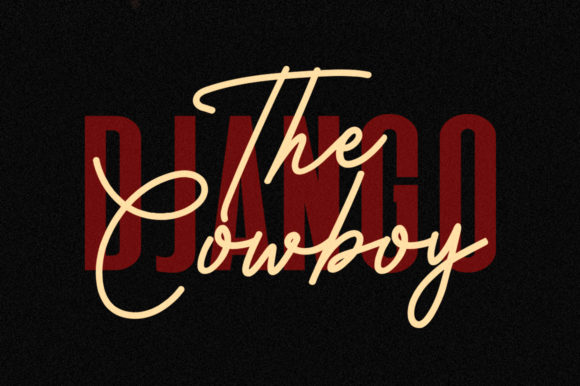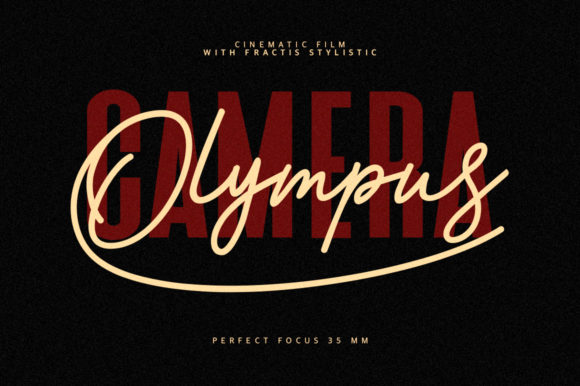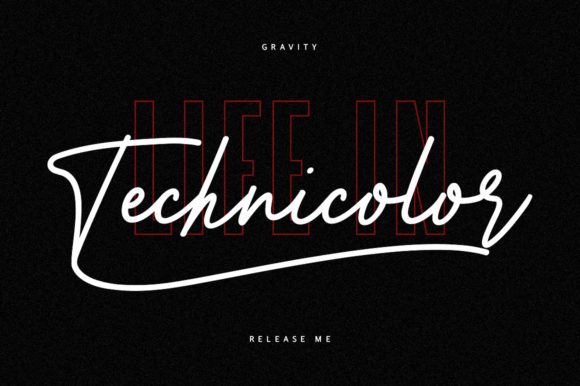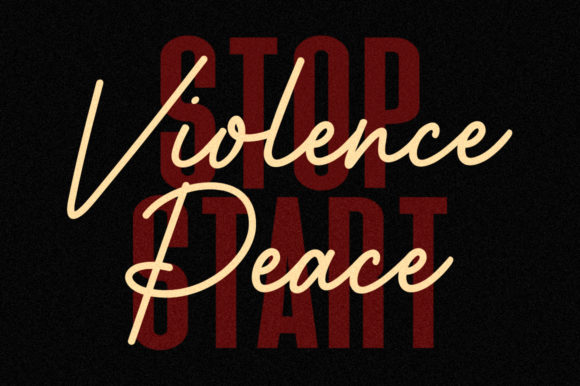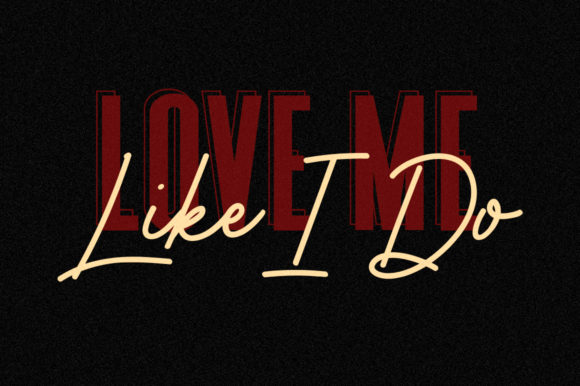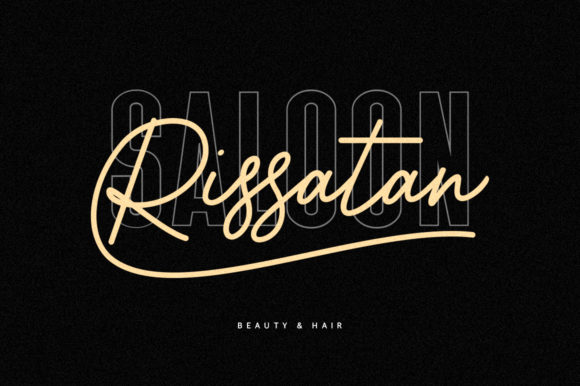
The Designer’s Dilemma: How Fractis Font Became My Go-To
I’ll never forget the frustration of working on a project, hours poured into every detail, and then… the font just wouldn’t cooperate. It was a client request for a bold, modern look that would make their brand stand out, but every font I tried seemed to fall flat. That’s when I stumbled upon Fractis Font, a game-changing duo font that has since become my top pick for elevating designs to the next level.
So, what makes Fractis Font so special? Let’s dive into the good stuff:
- ✨ Versatility: Fractis is a duo font consisting of a sans serif and script, making it incredibly versatile for various design projects.
- ✅ Bold and Eye-Catching: The font’s bold style ensures your designs grab attention and make a lasting impression.
- 💡 Easy to Read: Despite its boldness, Fractis remains surprisingly legible, even at smaller sizes.
Of course, no font is perfect, and Fractis has a few minor quirks:
- 🤔 Glyph Overload: With so many glyphs and stylistic alternates, it can take some time to get familiar with the OpenType features.
- ⚠️ Occasional Kerning Issues: As with any font, some users might experience kerning issues, especially when mixing the sans serif and script styles.
The Designer Inspiration Behind Fractis Font
While the true story behind Fractis Font’s creation remains a mystery, it’s easy to imagine a designer striving to craft the perfect duo font. Perhaps they wanted to create a versatile font that would empower designers to push the boundaries of creativity. Whatever the inspiration, Fractis Font has undoubtedly become a valuable tool for designers worldwide.
Q: What makes Fractis Font so versatile?
A: Fractis Font’s versatility stems from its duo font design, combining a bold sans serif with a beautiful script. This allows it to adapt to various design projects, from modern branding to creative crafts.
Q: Is Fractis Font suitable for body text?
A: While Fractis Font is primarily designed for headlines and titles, its legibility makes it suitable for shorter body text passages. However, for longer texts, a more traditional body font might be more suitable.